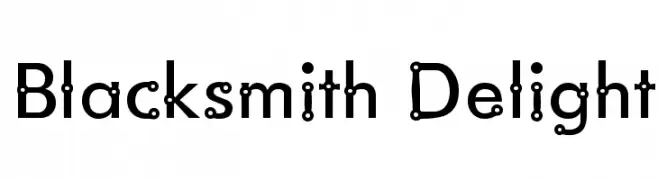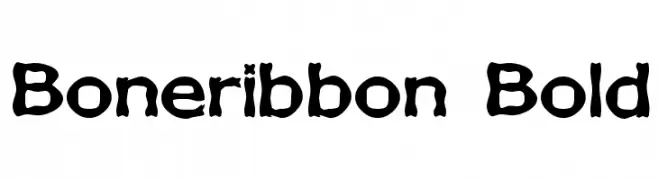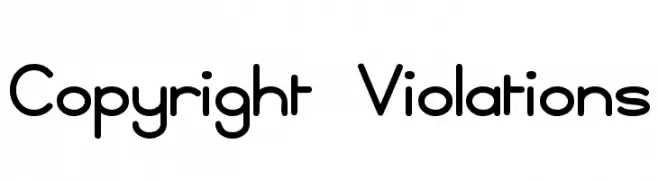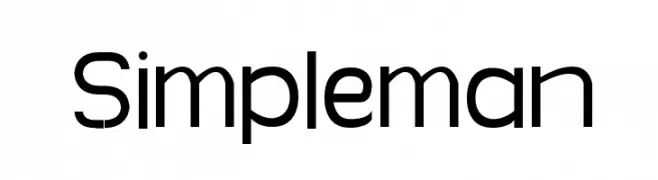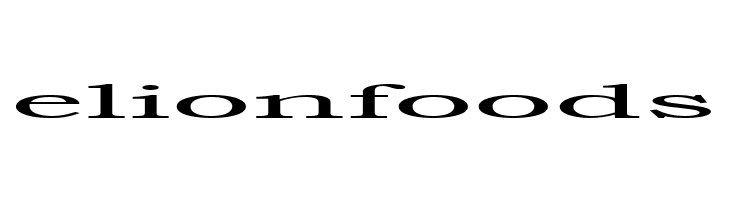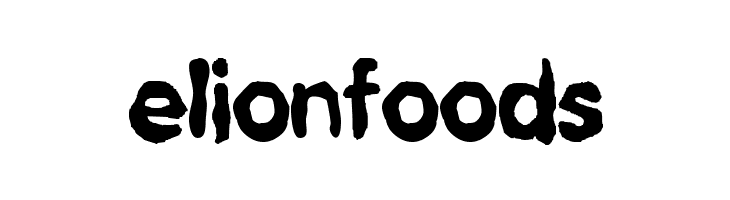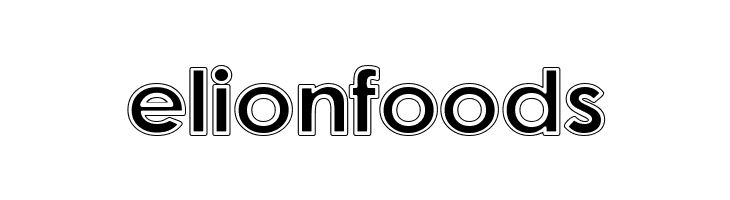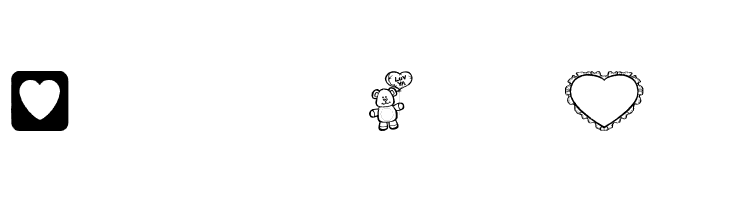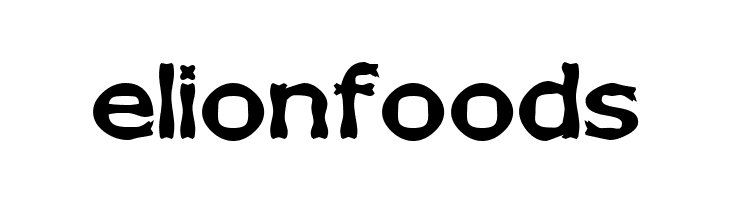
• Steamroller
A classic serif font with elegant curves and sharp edges, perfect for a timeless look.
• AcidDreamer
A textured, distressed font with a rugged, grungy appearance.
• Melted Moments
A playful, hand-drawn font with a melted, organic appearance.
• College Halo
A bold, outlined collegiate-style font with strong, clean lines.
• Luvya Babe
A decorative font with playful, heart-themed illustrations perfect for romantic projects.
• Boneribbon Bold
A bold, playful font with irregular, hand-drawn style letters.
• Blacksmith Delight
A playful, modern font with circular connections and consistent stroke widths.
• Simpleman
A modern, geometric sans-serif font with clean lines and balanced proportions.
• Copyright Violations
A playful, rounded font with smooth curves and uniform stroke width.
• Bonk Outercut
A bold, layered font with a three-dimensional, futuristic design.